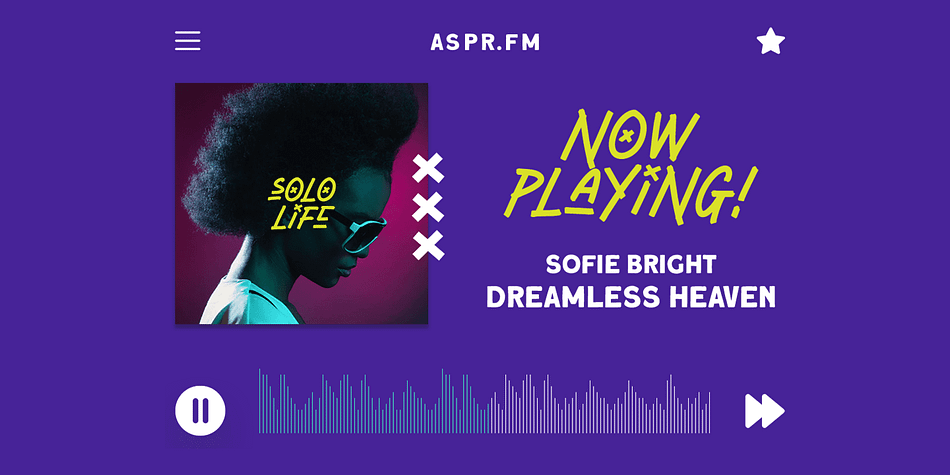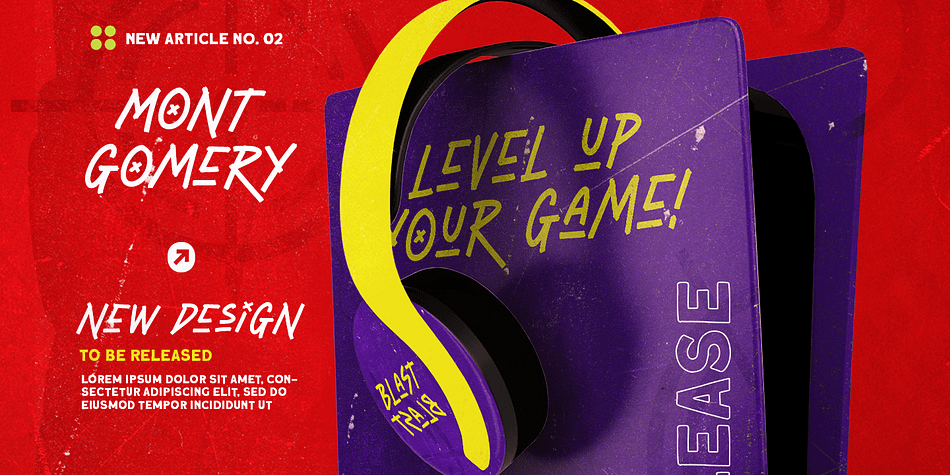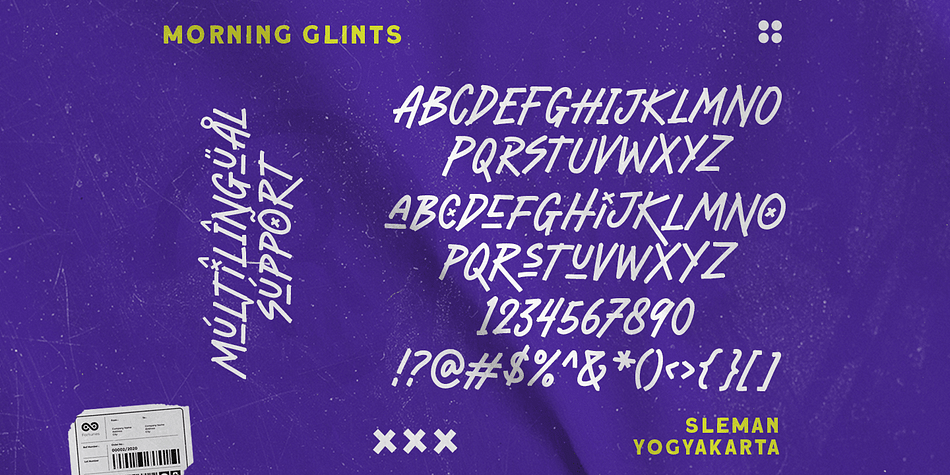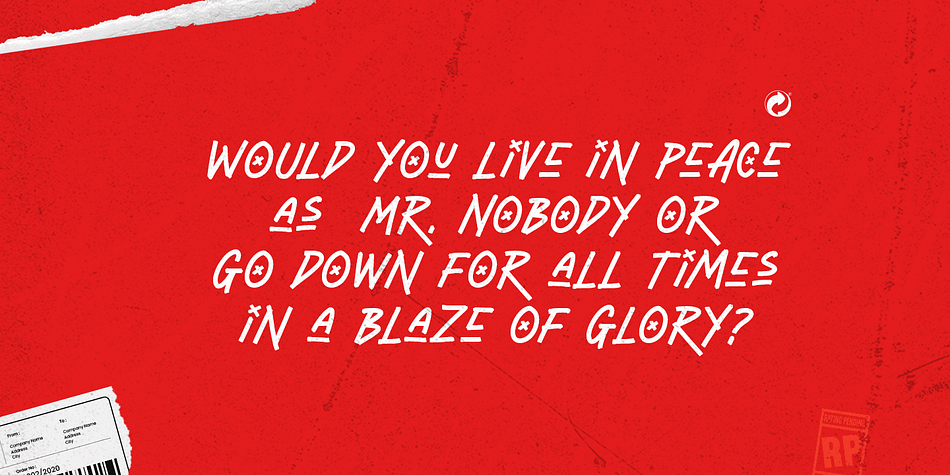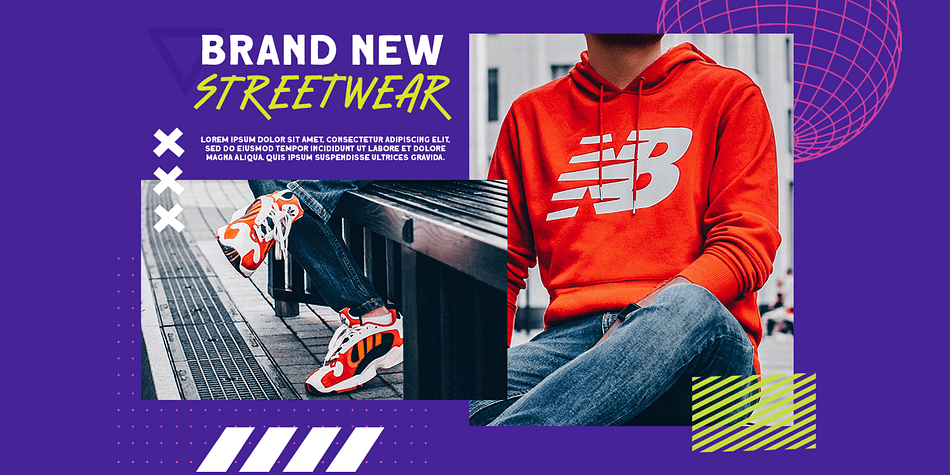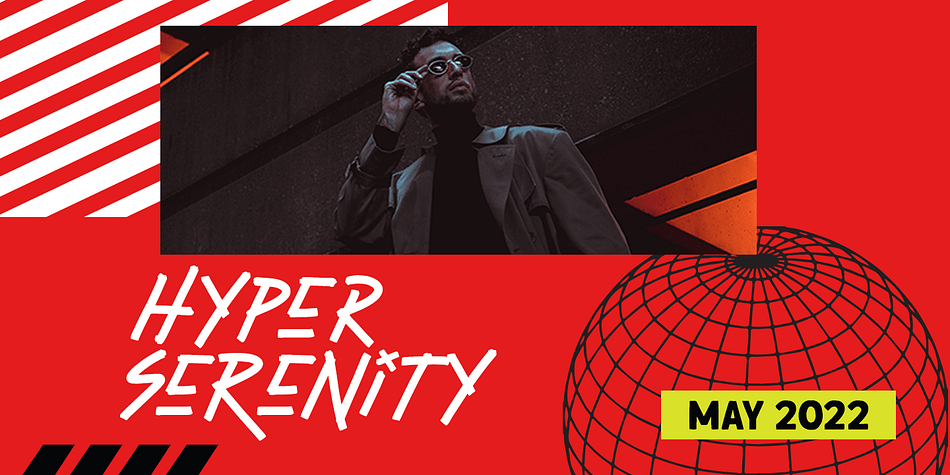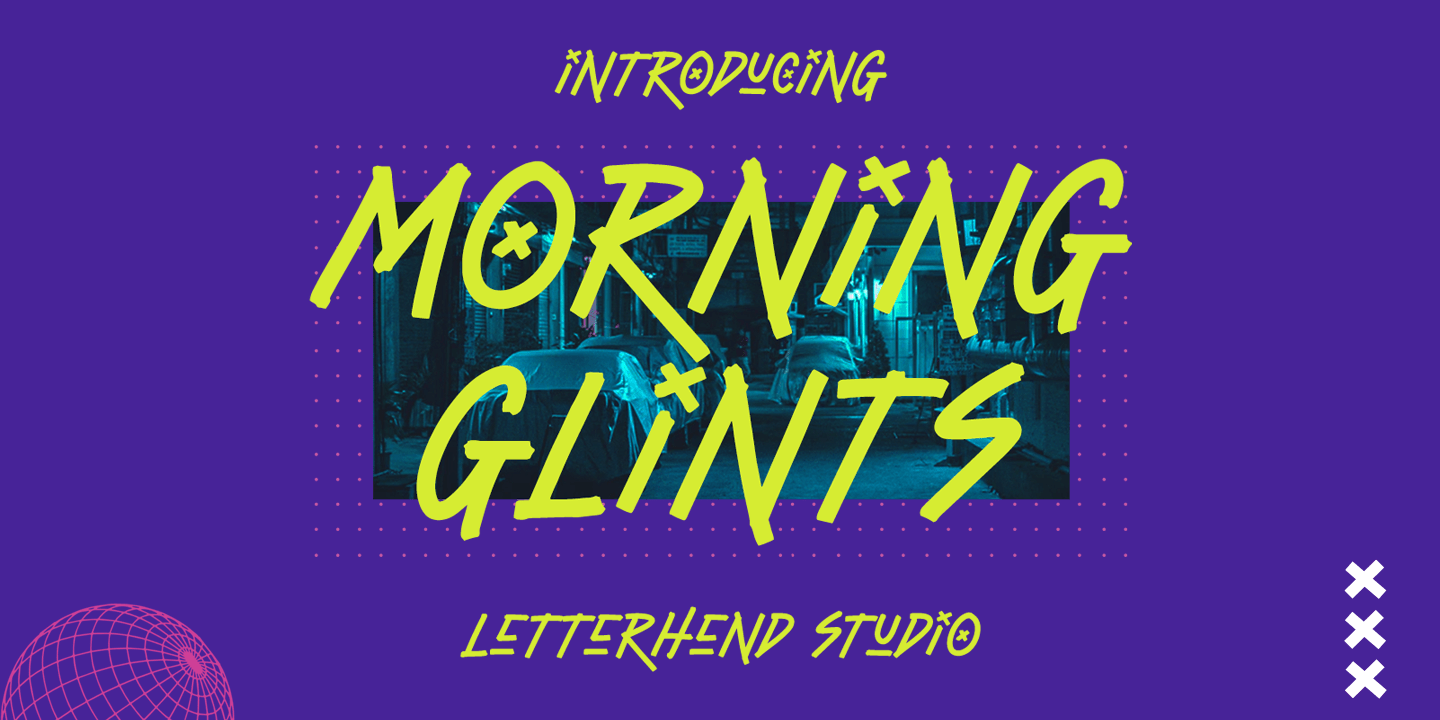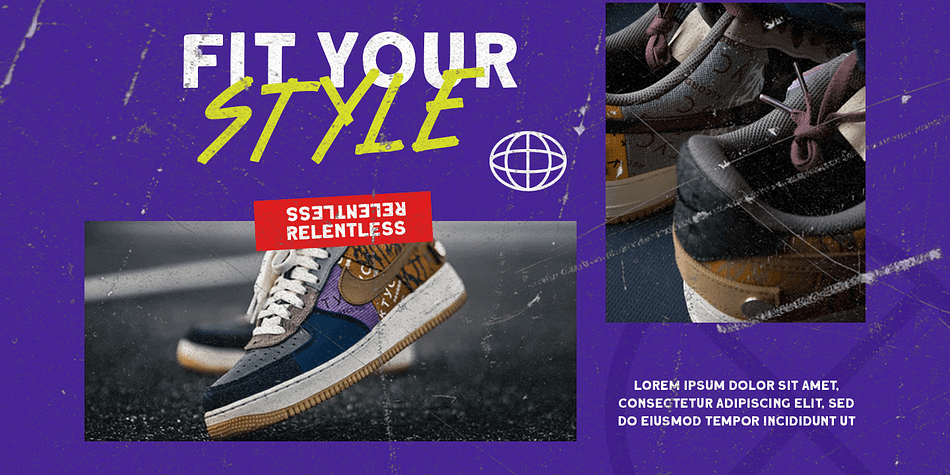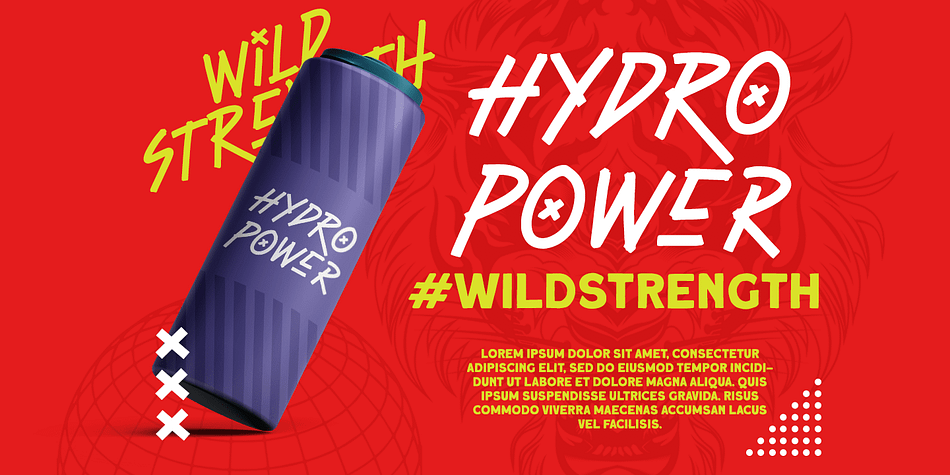
Morning Glints
Designed by Hendry Juanda, Morning Glints is a display, hand display and hand drawn font published by Letterhend Studio.
Introducing, Morning Glints - a modern and playful typeface which is purposely made for headline, display or logotype. This type of font perfectly made to be applied especially in logo, and the other various formal forms such as invitations, labels, logos, magazines, books, greeting / wedding cards, packaging, fashion, make up, stationery, novels, labels or any type of advertising purpose.
- alternates & ligatures